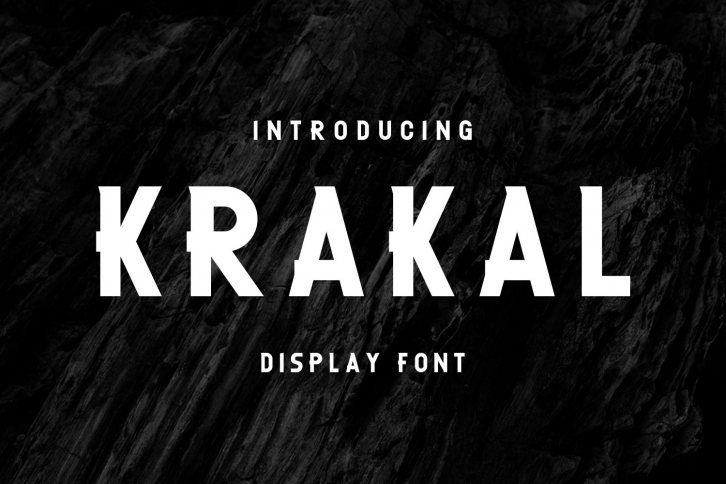
Krakal Displat is a great font that was designed by evloxx studio. Imagine the amount of combinations you can create using this font! The archive is 4.82 MB and it was released on March 24, 2022. Krakal Displat looks beautiful on wedding invitations, greeting cards, logos, posters, labels, t-shirt designs, logos, business cards and is perfect for use in ink or watercolor works, fashion, magazines, packaging and food menus, children's books and more!